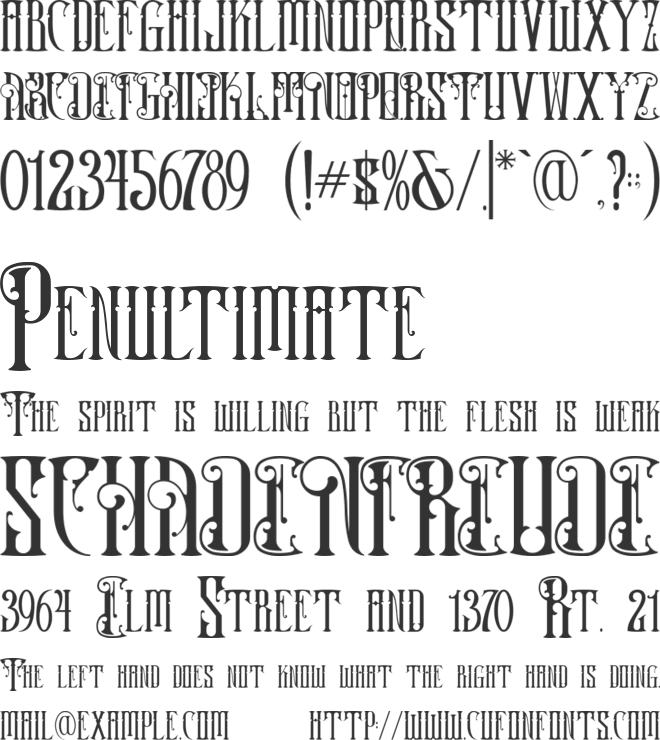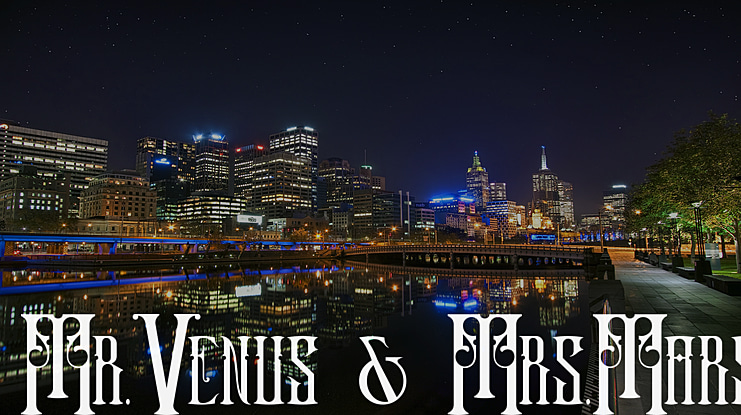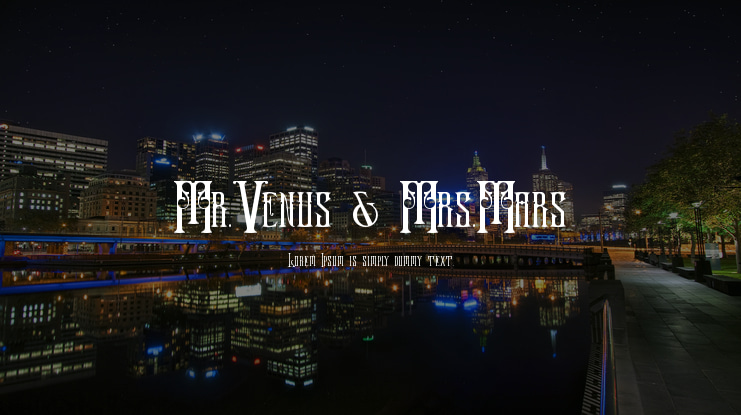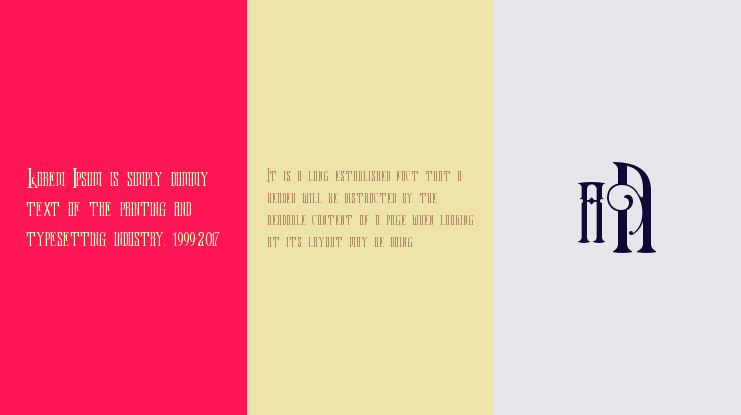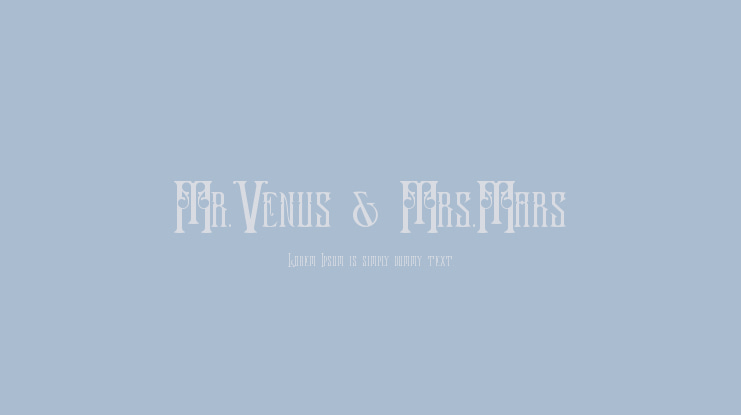
Mr.Venus & Mrs.Mars Font Family
Introducing our new release, Mr. Venus & Mrs. Mars Display Typeface. This typeset is perfect for brand logos, invitations, greeting cards, or even any kind of project. With multilingual features and style variations, this typeface would further enhance the aesthetical aspect of your work.